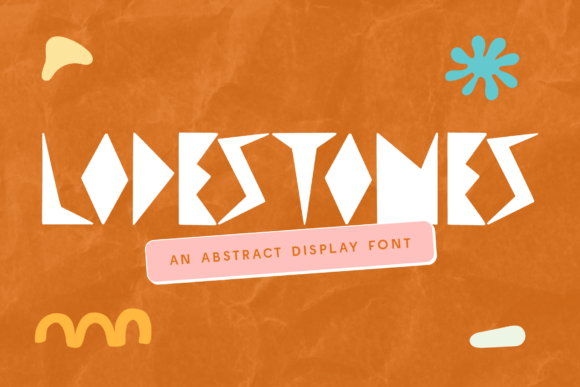
Lodestones Font: The Magnetic Force of Creativity
Are you tired of using the same old fonts that blend into the background? Look no further than Lodestones, an abstract display font that’s about to revolutionize the way you approach design. With its sharp angles, offbeat symmetry, and daring cuts, Lodestones is a game-changer for creative rebels and visual storytellers alike.
What Makes Lodestones Unique?
- 🎨 Abstract Geometry: Lodestones boasts unusual shapes and angles that add edge and attitude to your layout. Its geometric flair is perfect for creating bold statements that demand attention.
- 🧲 Visually Magnetic: This font is designed to grab attention and never let go. Its magnetic force of creativity pulls the eye and sparks curiosity, making it ideal for creative posters, funky branding, and editorial headlines.
- 🧩 Handcrafted Vibes: Lodestones feels both modern and handmade, with a quirky and experimental touch. Its unique character is perfect for designers who want to add a personal touch to their work.
- 🌎 Multilingual Support: With a wide range of global characters and punctuation, Lodestones is the perfect choice for designers who work with international clients or want to create content that resonates with a global audience.
Endless Design Possibilities
Lodestones is more than just a font – it’s a visual adventure. Its abstract essence and geometric flair make it the perfect choice for:
- Creative posters that demand attention
- Funny branding that sets you apart
- Zines and kids’ projects that require a playful touch
- Editorial headlines that need a bold statement
- Any design project that requires a magnetic force of creativity
Why Choose Lodestones?
In a sea of sameness, Lodestones is a breath of fresh air. Here are just a few reasons why you should choose Lodestones for your next design project:
- Stand out from the crowd: With Lodestones, you can create designs that are truly unique and attention-grabbing.
- Add edge and attitude: This font’s abstract geometry and sharp angles add a level of sophistication and attitude to your design.
- Experiment and have fun: Lodestones is the perfect choice for designers who want to push the boundaries of creativity and try new things.
- Font type: Abstract display font
- Characters: Includes a wide range of global characters and punctuation
- Language support: Multilingual support
In conclusion, Lodestones is a game-changing font that’s perfect for creative rebels and visual storytellers. With its abstract geometry, visually magnetic design, handcrafted vibes, and multilingual support, Lodestones is the perfect choice for designers who want to add a level of sophistication and attitude to their work.